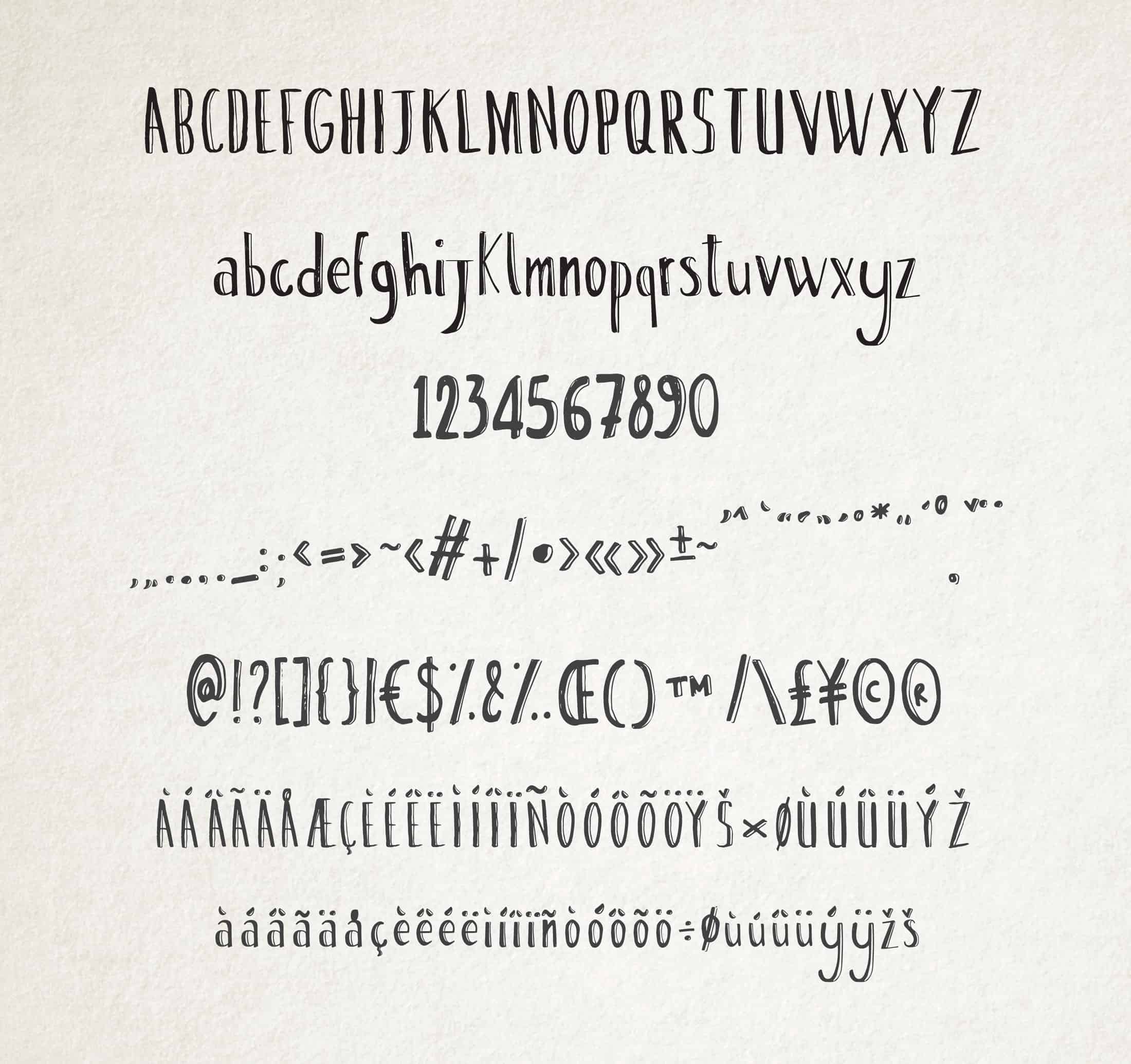
agattau
Explore the Unique Charm of Agattau Font
Agattau Font, crafted by renowned typographer Alex Smith in 2023, offers a distinctive display style that captures the audience’s attention. Perfect for creative projects, branding, and eye-catching headlines, Agattau combines modern design with a playful spirit, making it an ideal choice for both digital and print media.
Key Features and Available Formats of Agattau Font
The Creative Journey of Agattau Font
Inspired by contemporary art and graphic design, Agattau Font was developed to embody a sense of fun and creativity. Alex Smith’s innovative approach ensures each character is designed to stand out, appealing to artists and designers alike who are looking for something unique and modern.
Endless Applications for Agattau Font
Ideal for posters, promotional materials, logo design, and websites, Agattau Font pairs beautifully with vibrant colors and dynamic layouts. Its distinctive flair makes it perfect for creative industries, ensuring that any project using this font will not go unnoticed.